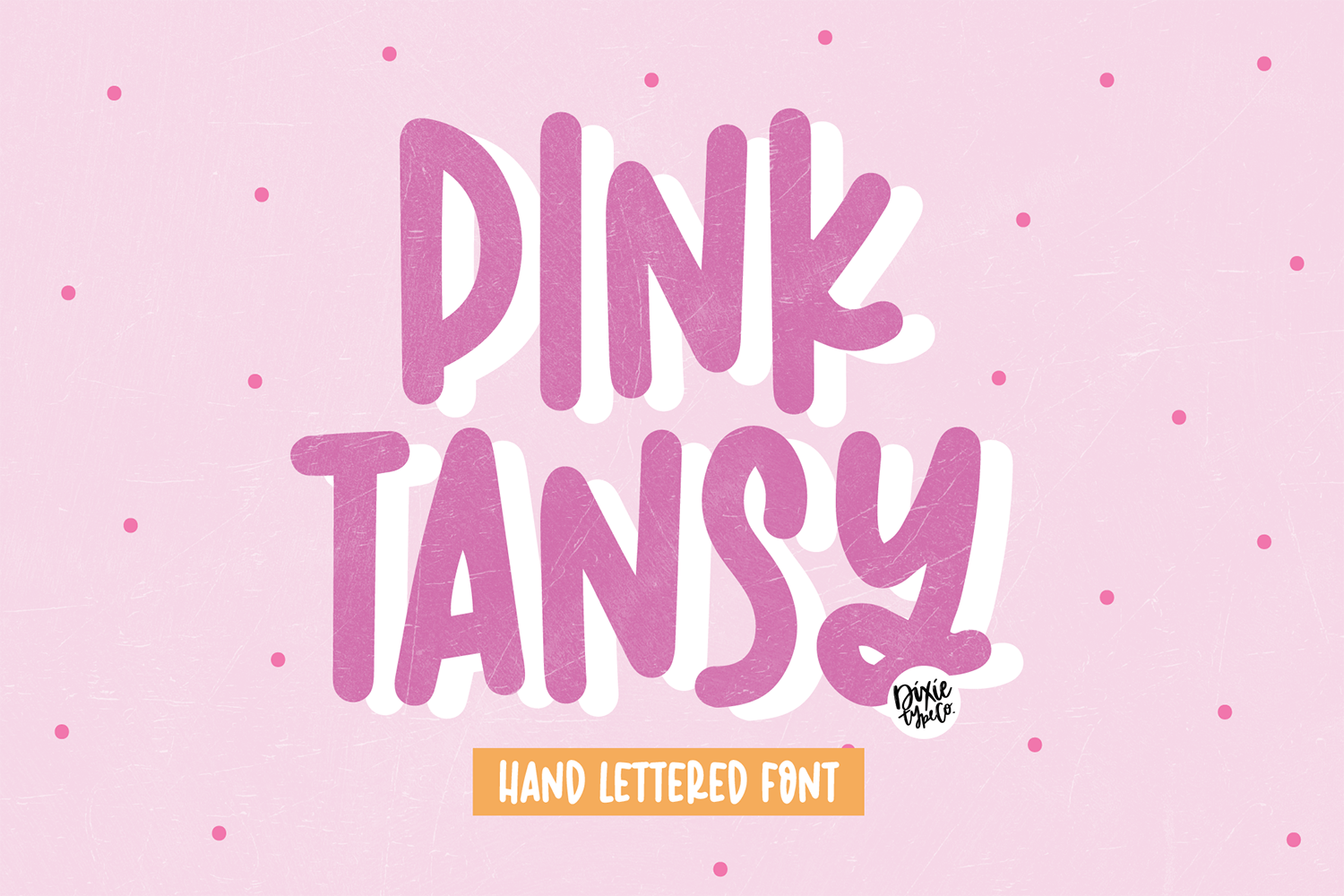
PINK TANSY Cute Sans Font
"Pink Tansy" hand-lettered script font.
{ A typographic font hand-lettered with love by Dixie Type Co. }
Pink Tansy is a bold hand-drawn font that is perfect for social media or crafty projects. Use it for t-shirts, birthday invitations, and more! This font includes numbers and basic punctuation marks.